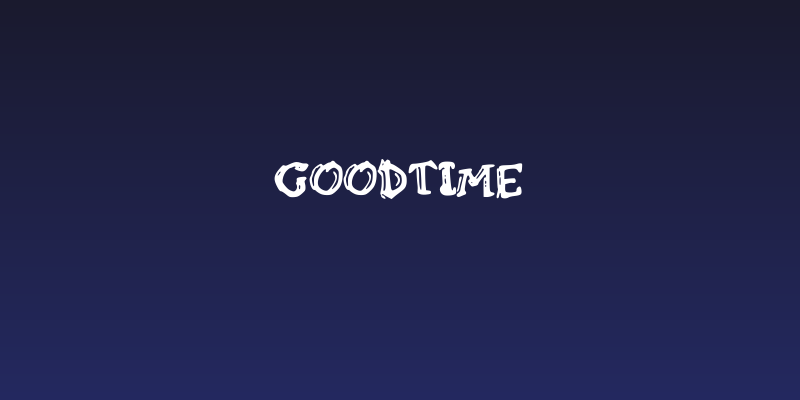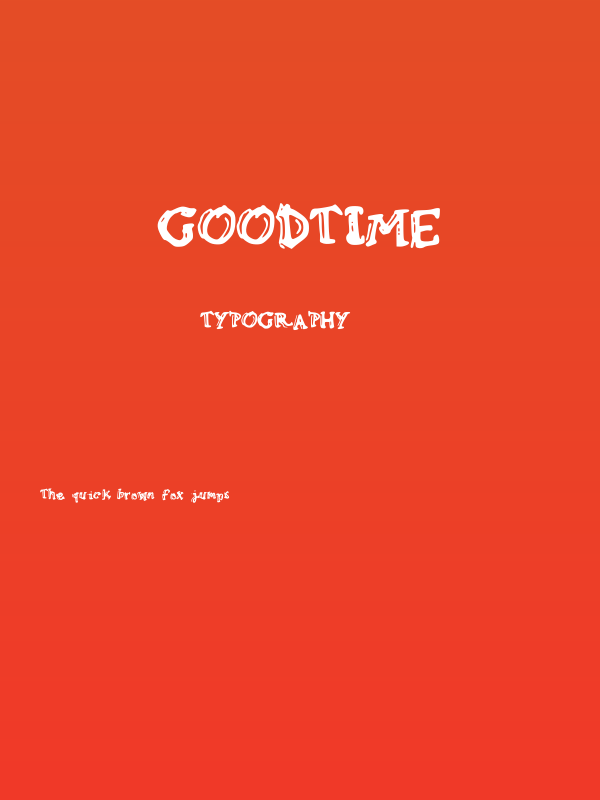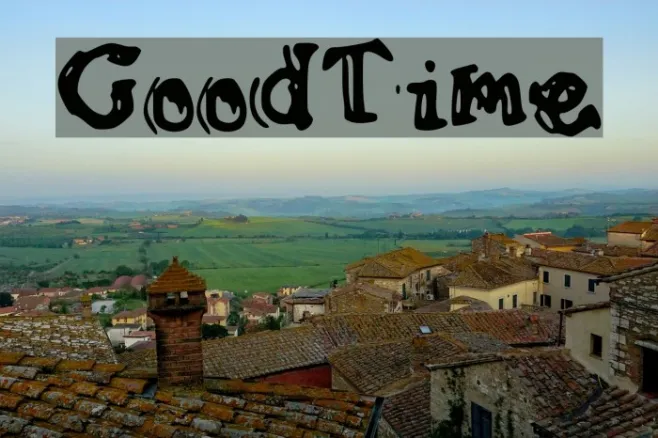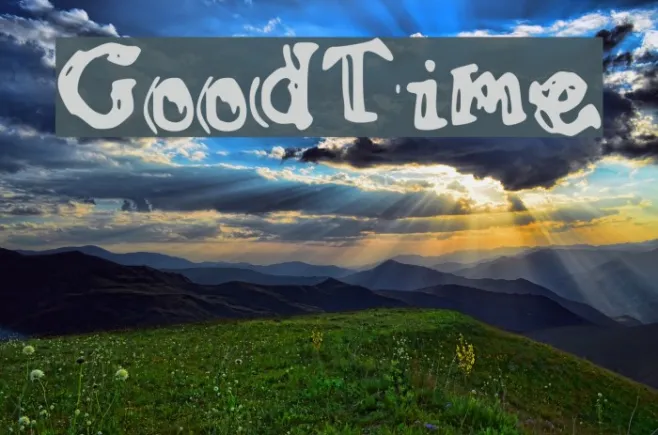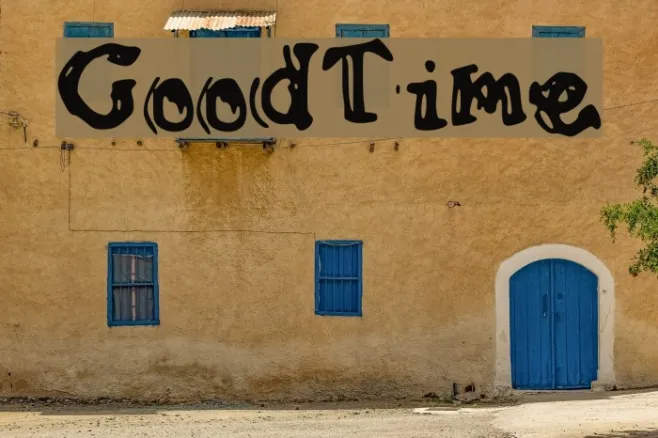
GoodTime Font
GoodTime Description
This font features a playful and whimsical design with a hand-drawn aesthetic. The characters are bold and irregular, giving them a lively and dynamic appearance. The strokes are uneven, with varying thickness that adds to the casual and artistic feel. The uppercase and lowercase letters maintain a consistent style, while the numbers and special characters complement the overall look. This font is ideal for projects that require a fun and informal touch, such as children's books, party invitations, or creative branding. Its unique style makes it stand out, capturing attention with its energetic and free-spirited vibe.
| Overall Style | Whimsical, Playful, Artistic |
| Proposed Projects | Children's books, party invitations, creative branding, posters, and playful merchandise. |